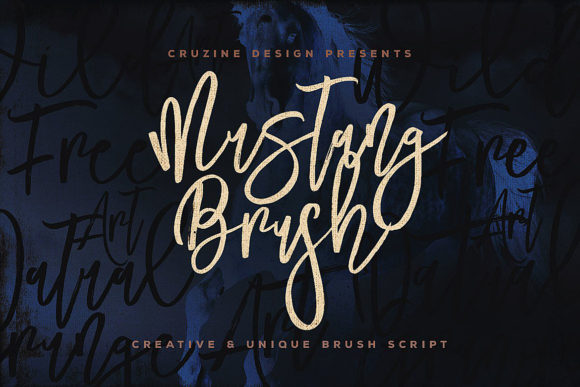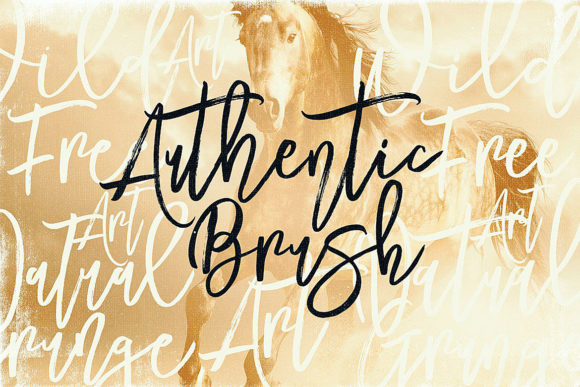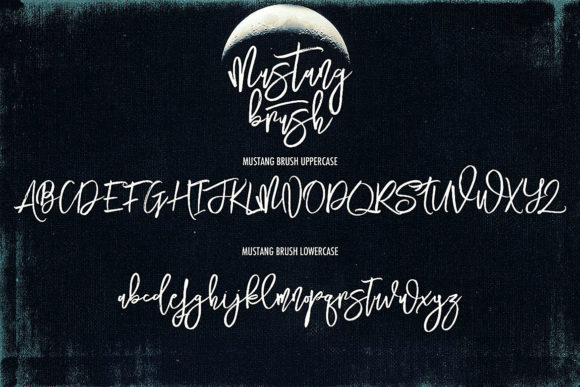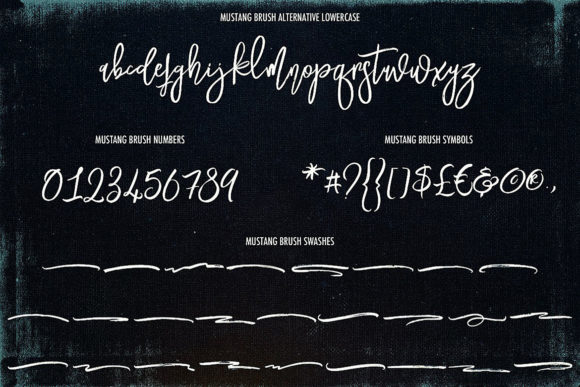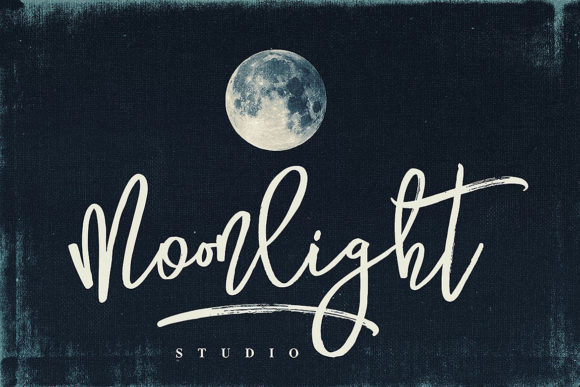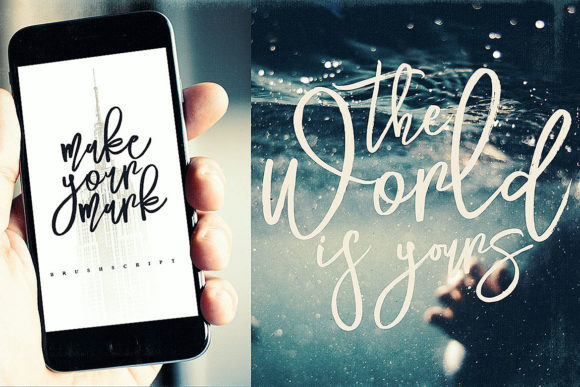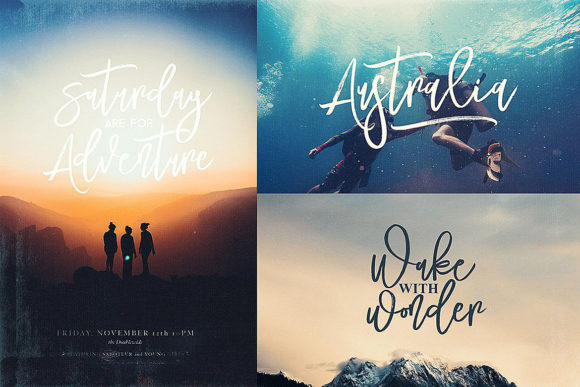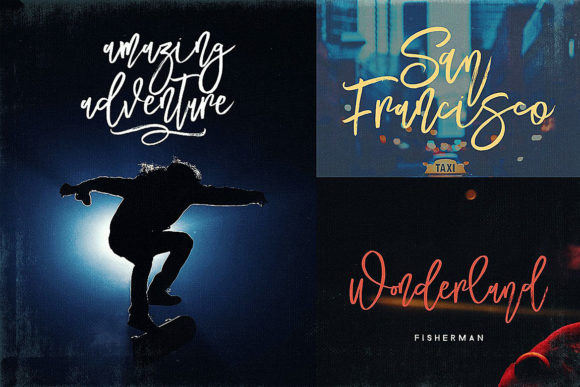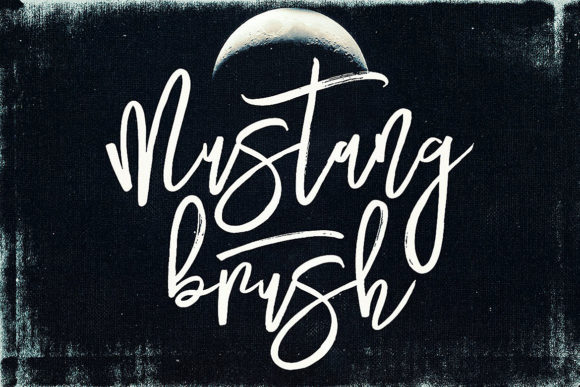
Mustang Font
About Mustang Font
The Mustang is an amazing brush font. It comes in three variations which can be combined perfectly. It can be used to add a rough look to every design.